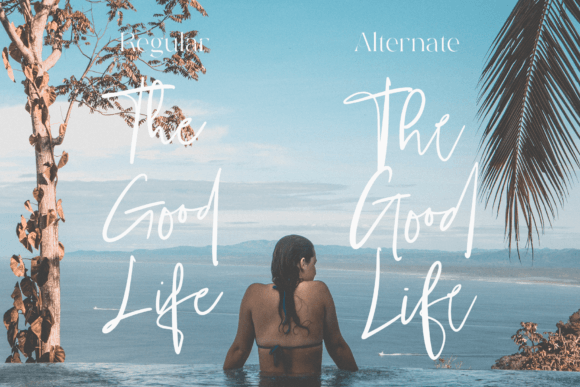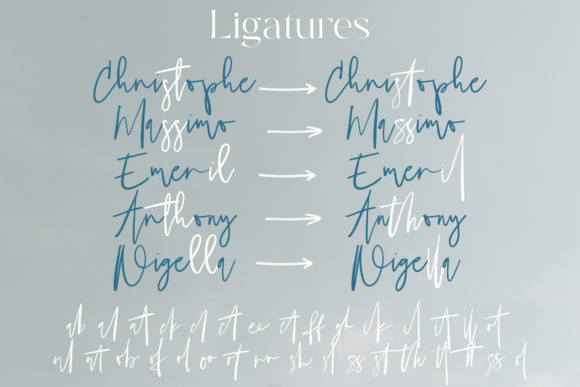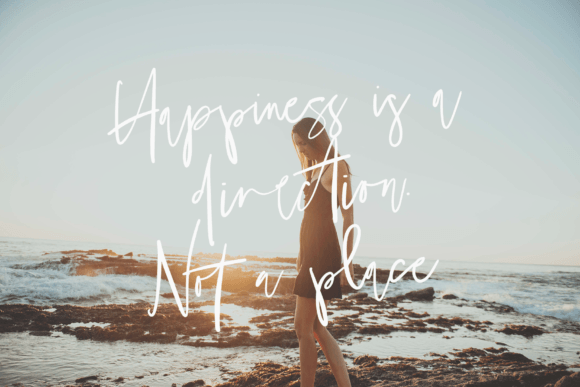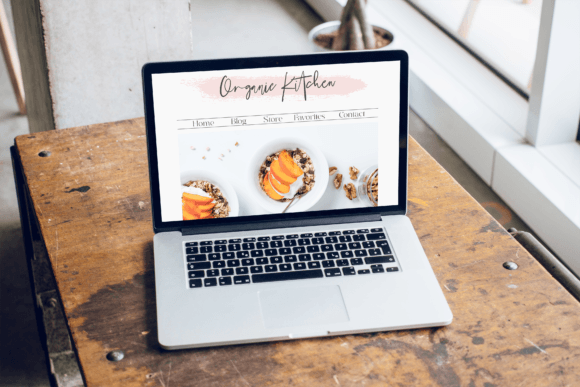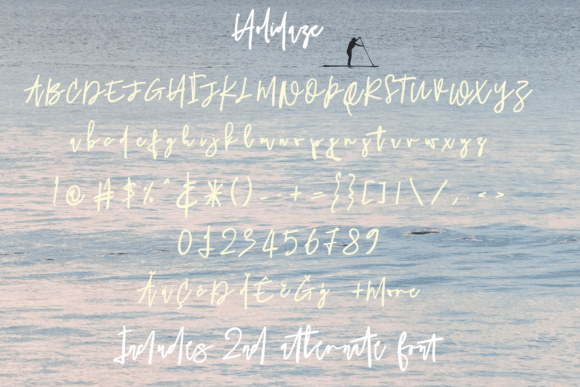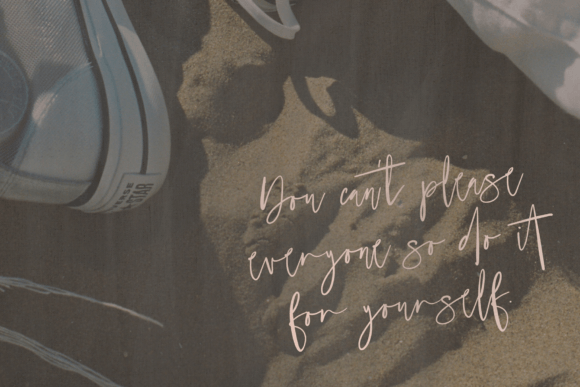
Introduction to Holidaze Font
Holidaze is a new hand-drawn brush script that features a fun & bouncy aesthetic.
This product features a second alternate font, as well as a large selection of ligatures so you can create realistic hand-drawn designs Perfect for creating social content & quotes, branding for small businesses & blogs, stationery, packaging designs & so much more.